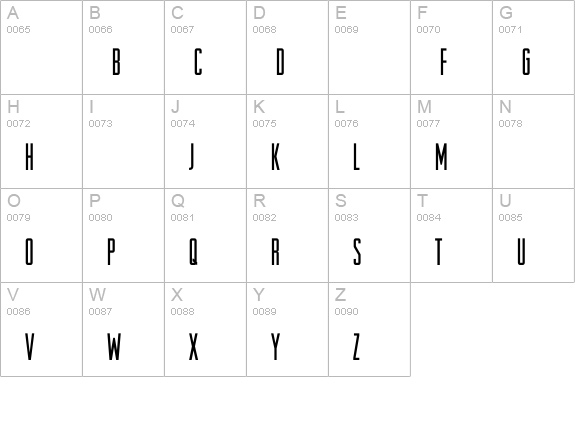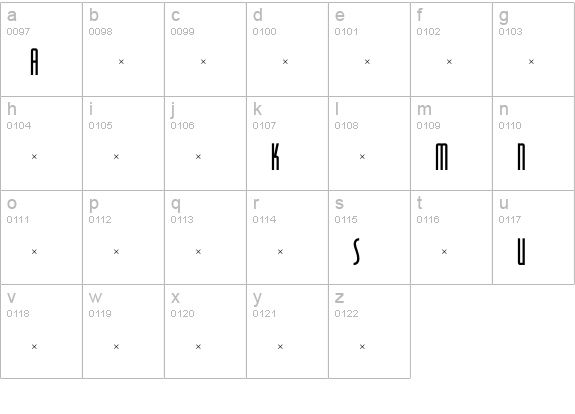
RRRaleighGothicMediumCond Font Details
RRRaleighGothicMediumCond is a stylish and versatile font that exudes a sense of gothic elegance. Its condensed form adds a modern touch while maintaining a classic appeal. Perfect for creating impactful headlines, branding materials, and editorial designs, this font strikes the perfect balance between sophistication and edginess. What makes RRRaleighGothicMediumCond even more appealing is that it is available for free download at FontsMarket.com. This means you can easily access this captivating font to elevate your projects without any cost. Embrace the unique charm of RRRaleighGothicMediumCond and make a statement with your design endeavors.